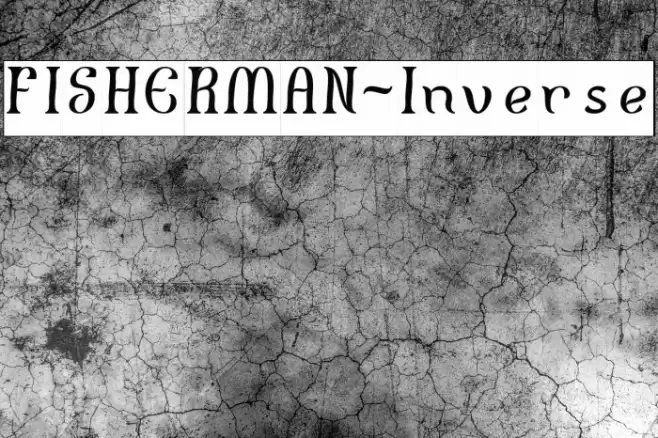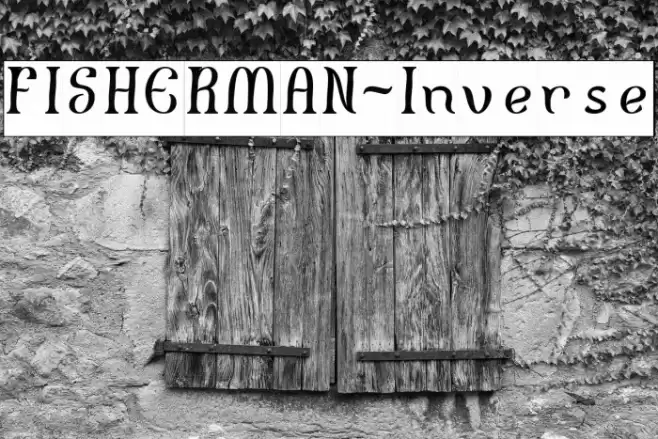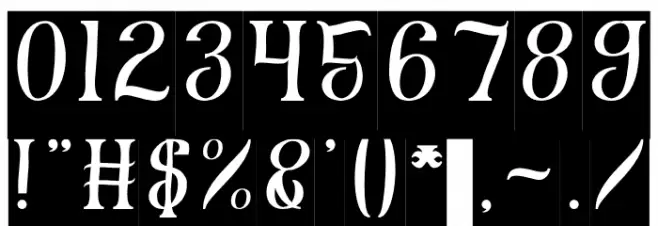
FISHERMAN-Inverse Font
FISHERMAN-Inverse Description
This font features a unique blend of classic and decorative elements, characterized by its flowing, curvilinear strokes and distinctive serifs. The uppercase letters exhibit a bold presence with slightly exaggerated curves, while the lowercase letters maintain a harmonious balance with a more subtle flair. The numerals are consistent with the overall style, offering a playful yet elegant appearance. Special characters are thoughtfully designed to complement the alphabet, enhancing the font's versatility. The font's high contrast between thick and thin strokes adds to its visual appeal, making it suitable for eye-catching designs.
A decorative font with flowing curves and high contrast, ideal for striking designs from Uncategorized fonts.
- Proposed Projects: This font is perfect for branding projects, poster designs, book covers, and any creative work that requires a touch of elegance and uniqueness.